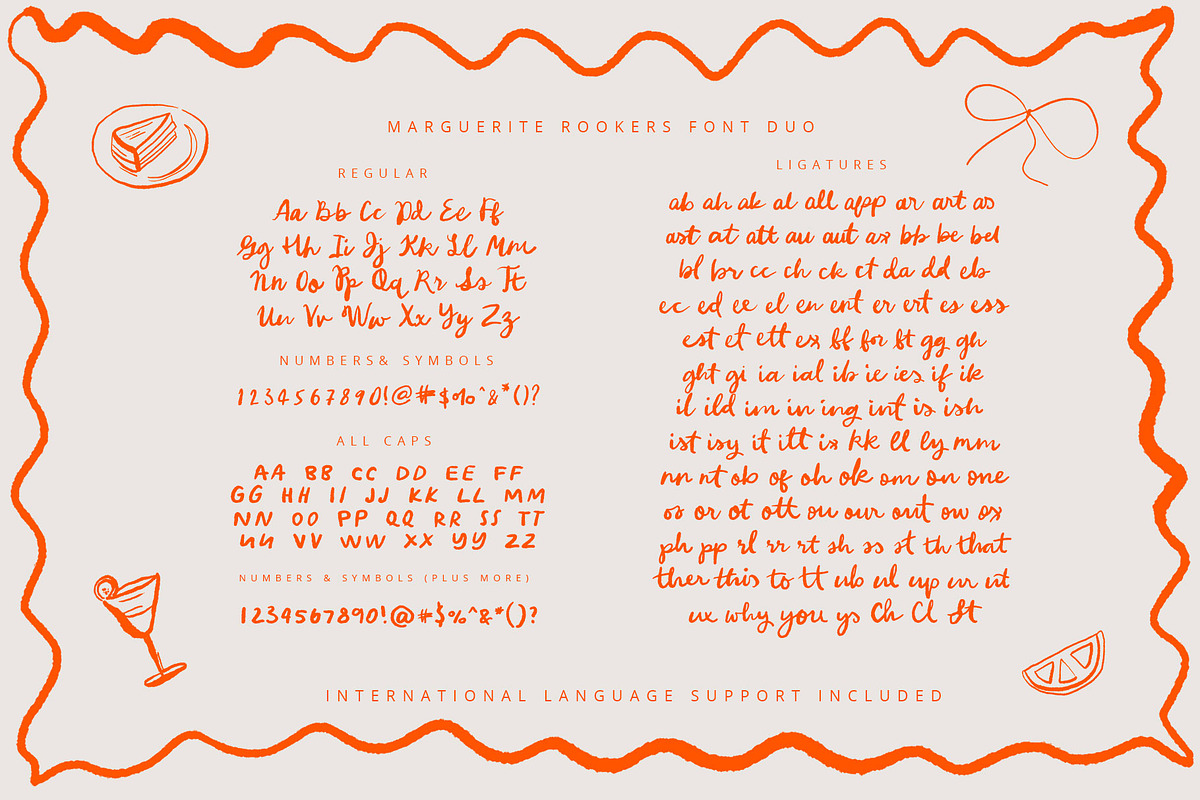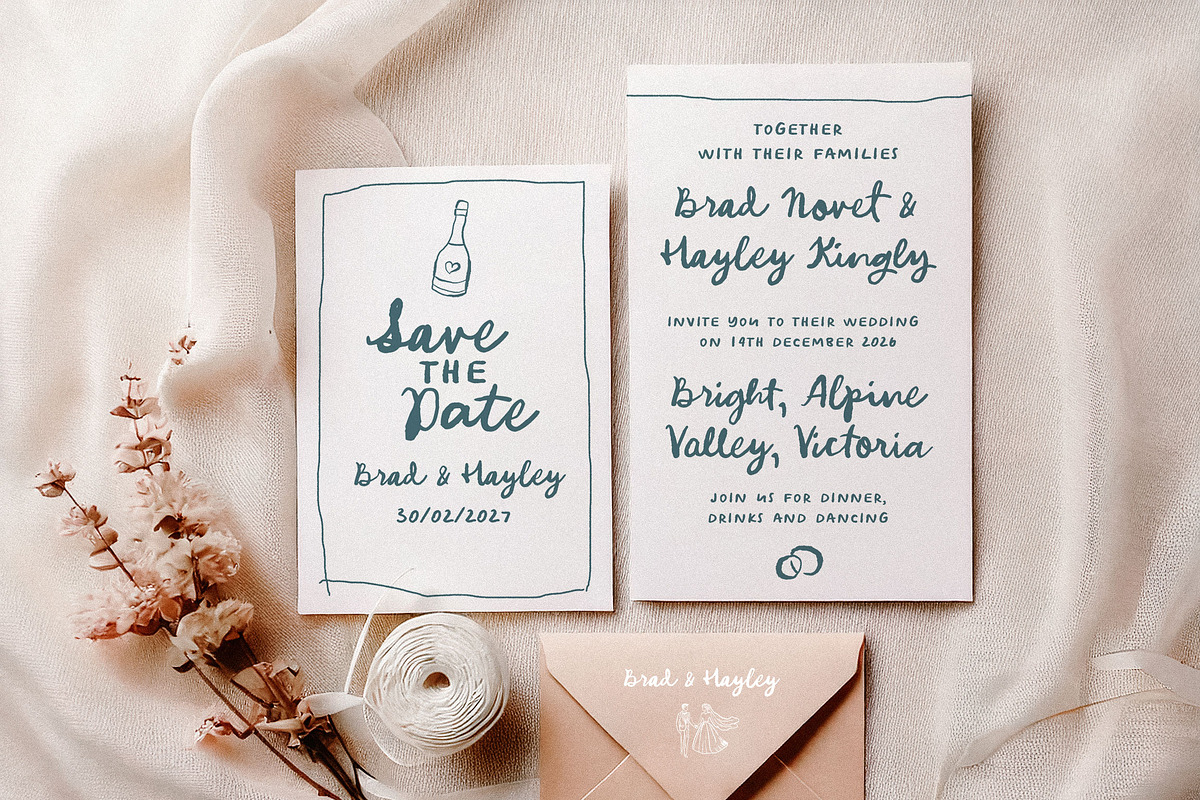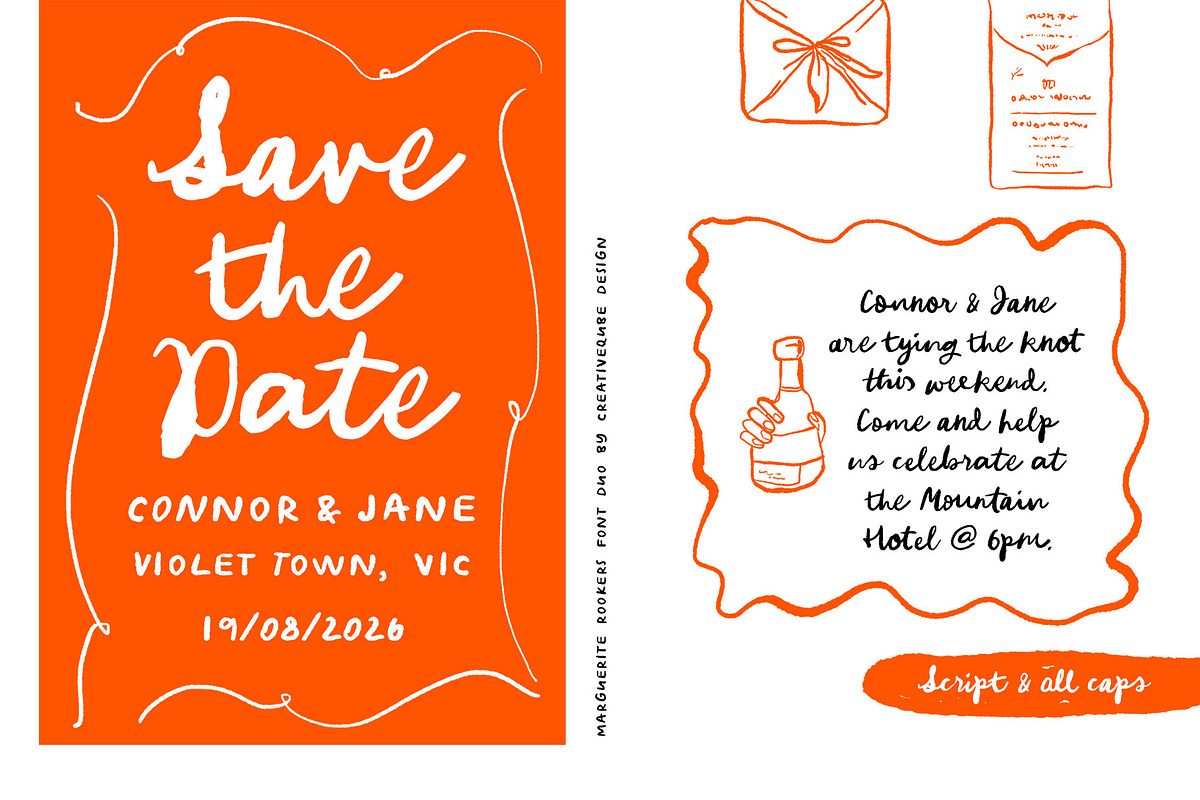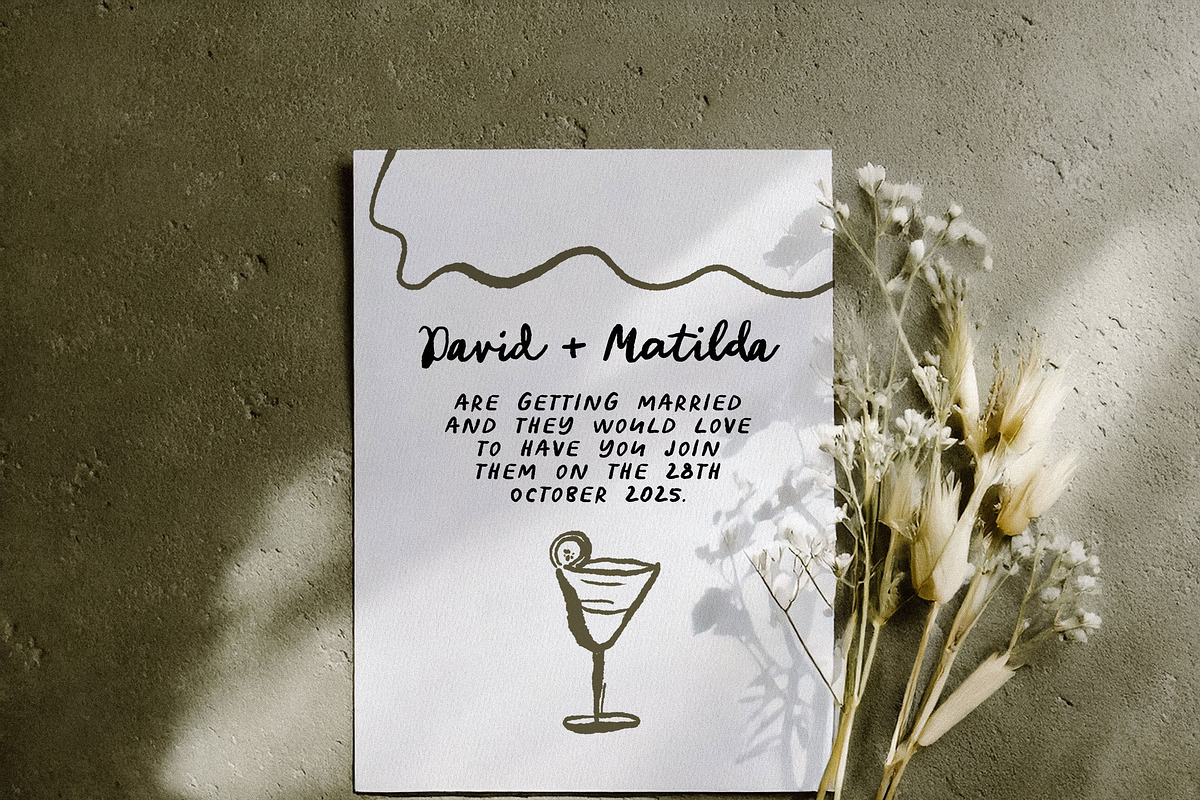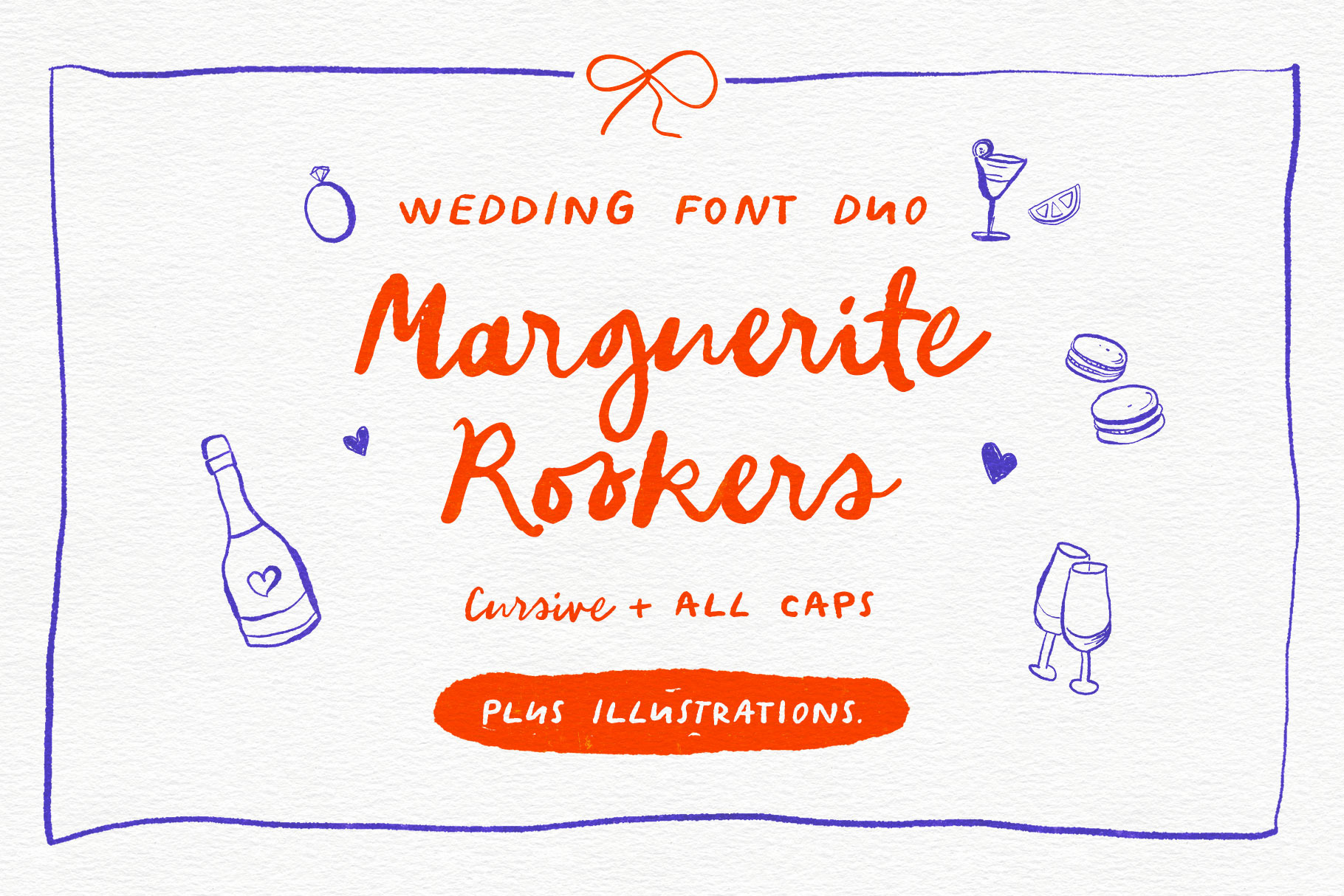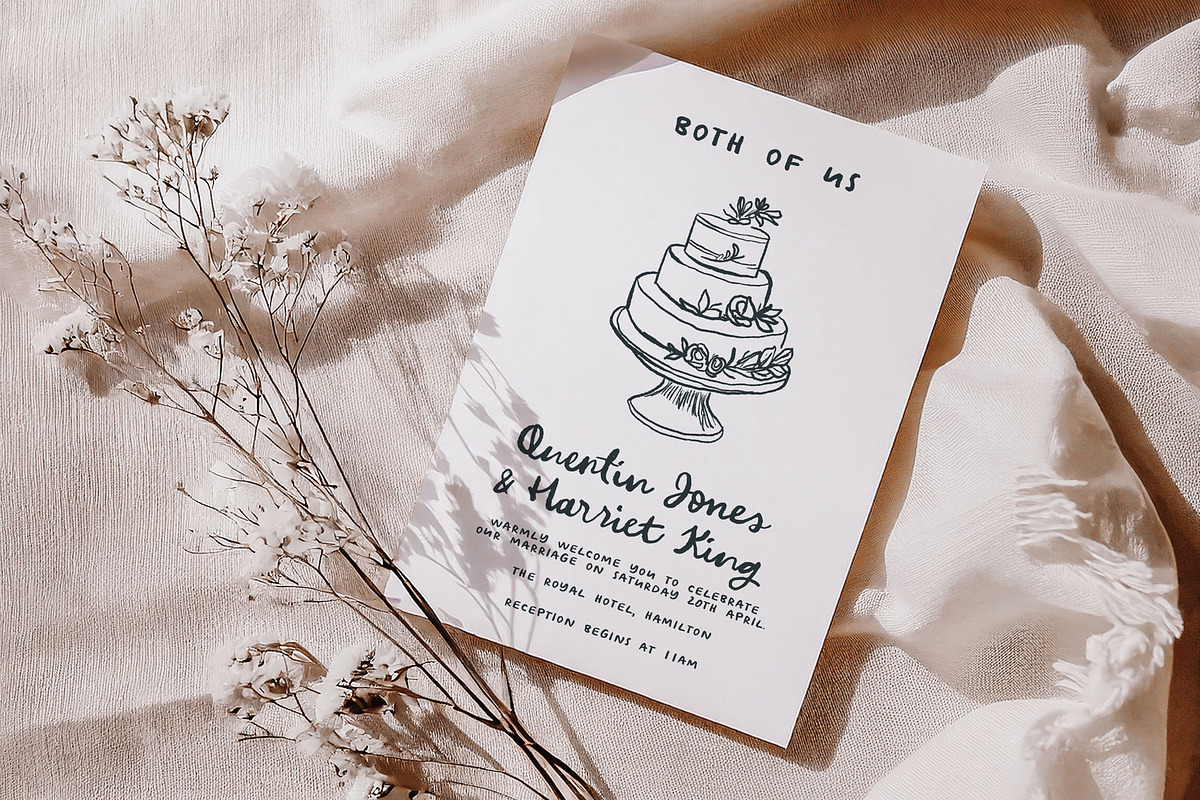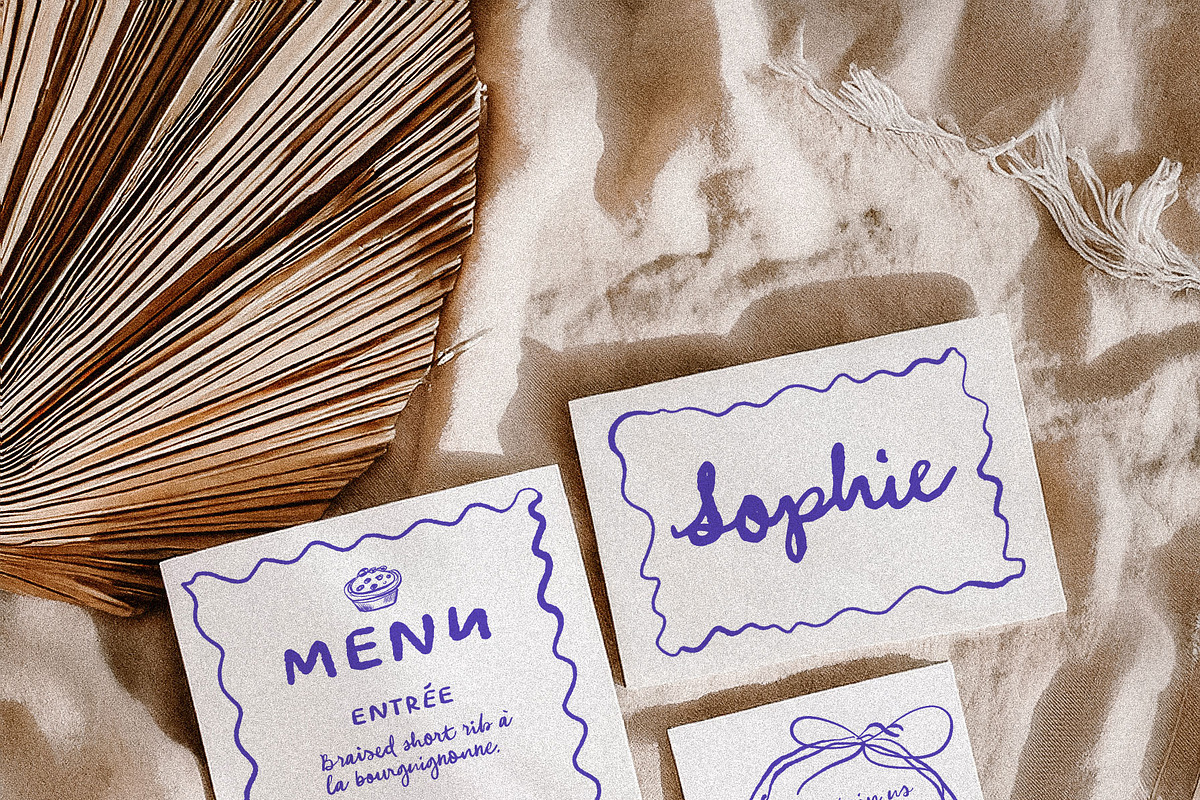
Marguerite Rookers Wedding Font Duo
Marguerite Rookers – A Handwritten rough handwritten script Font and an all caps handwritten complimentary font for Your Creative Projects
Add a touch of personality and charm to your designs with Marguerite Rookers , the perfect handwritten font duo, including 116 special ligatures. Whether you're creating invitations, social media posts, logos, or merchandise, this font will give your work a fresh, modern feel.
Marguerite Rookers blends playful curves and stylish lines, making it versatile for everything from casual to professional designs. Its unique handwritten look is perfect for giving your projects that custom, personal touch.
Uppercase & lowercase letters
116 special Ligatures
Cursive and All caps
International language support
Why You'll Love Marguerite Rookers:
Playful & Trendy: A modern, handwritten style that’s perfect for adding fun to your designs.
Versatile: Ideal for weddings, invitations, branding, websites, merchandise, and more!